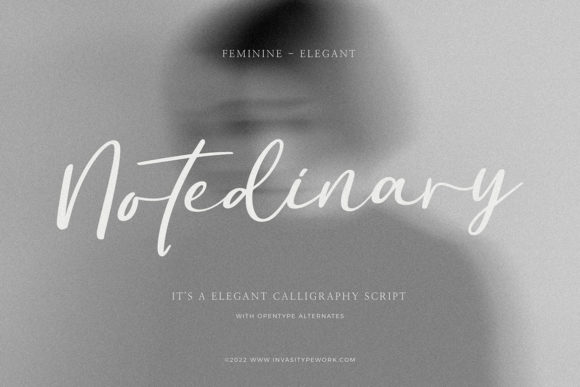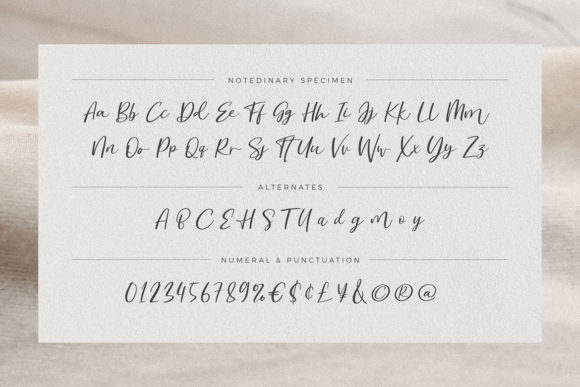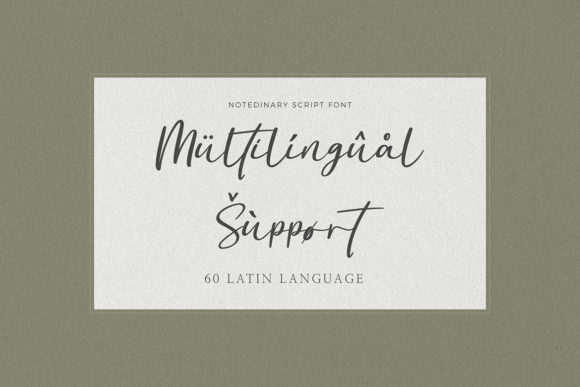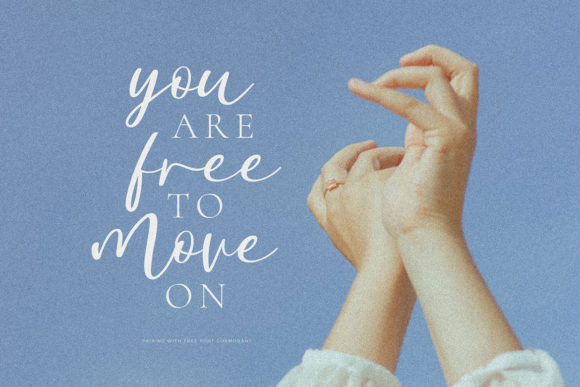
About Notedinary Font
Introducing Notedinary, a relaxed and casual handwritten font that brings a laid-back charm to your creative projects. Whether you’re working on designs for personal or professional use, Notedinary adds a touch of ease and informality. With PUA encoding, accessing all the glyphs and swashes is simple, allowing you to customize your designs effortlessly.
Notedinary’s appeal lies in its relaxed and casual style, making it a versatile choice for various applications. Whether you’re creating social media graphics, invitations, branding materials, or any other design project, this font exudes a sense of effortlessness and approachability.
For social media graphics, Notedinary becomes a key element in creating a friendly and relatable aesthetic. Its casual handwritten style adds a personal touch, making your posts and content more engaging.
In invitations, Notedinary contributes to a laid-back and welcoming atmosphere. Whether you’re planning a casual event or looking to add a touch of informality to your designs, this font brings a relaxed charm to your invitations.
Branding materials benefit from Notedinary’s approachable script. Whether used in logos, packaging, or promotional materials, the font adds a touch of ease and friendliness, making your brand more relatable.
Notedinary’s PUA encoding allows for easy access to all the glyphs and swashes, providing you with the flexibility to customize your designs to suit your creative vision. Whether you want to add playful details or create a more relaxed look, this font is a valuable tool for creative expression.
Embrace the relaxed and casual vibe of Notedinary as you confidently incorporate it into your various projects. Whether you’re designing for personal enjoyment or professional purposes, let Notedinary be the font that brings an effortless and friendly touch to your creative endeavors.